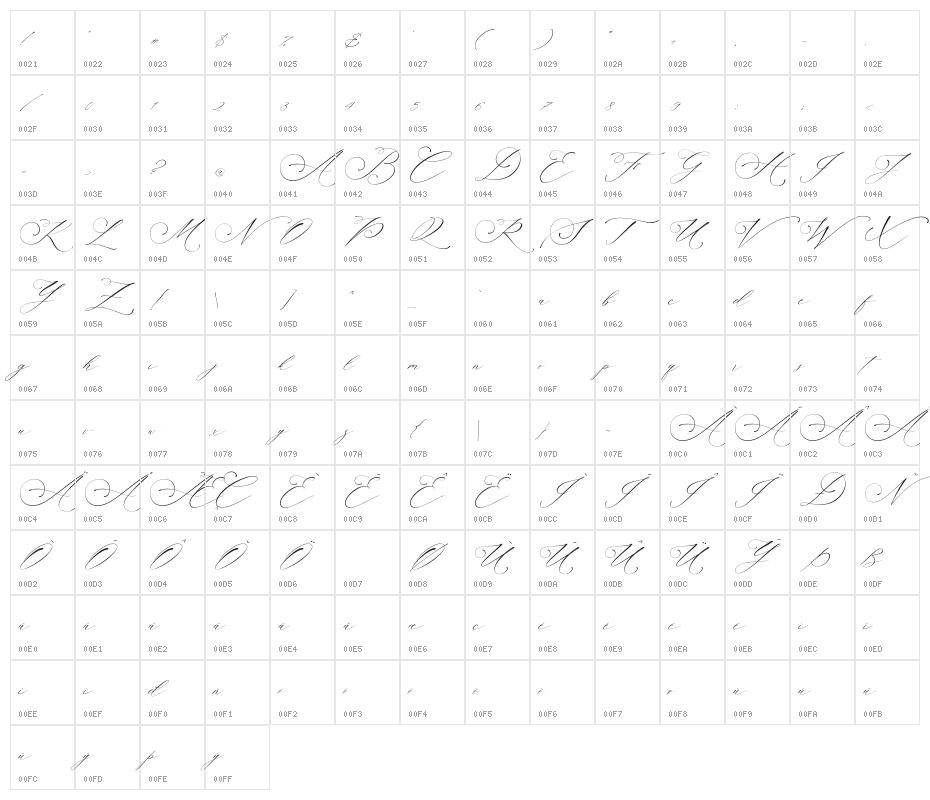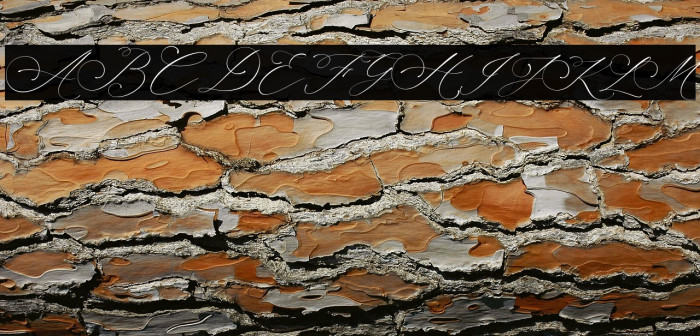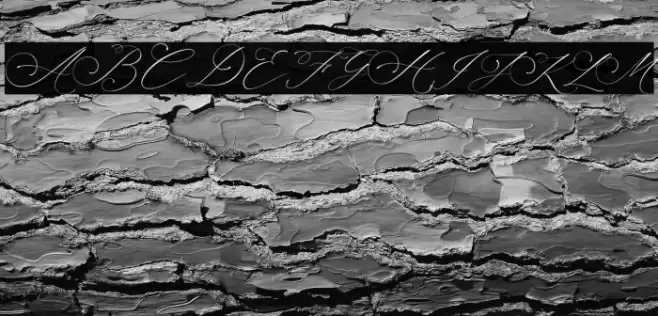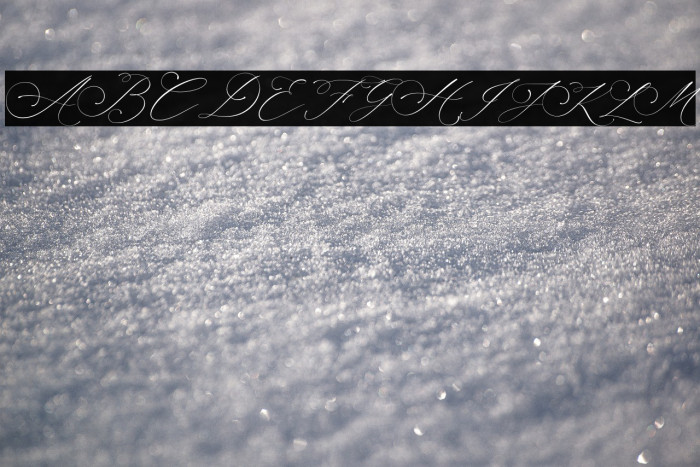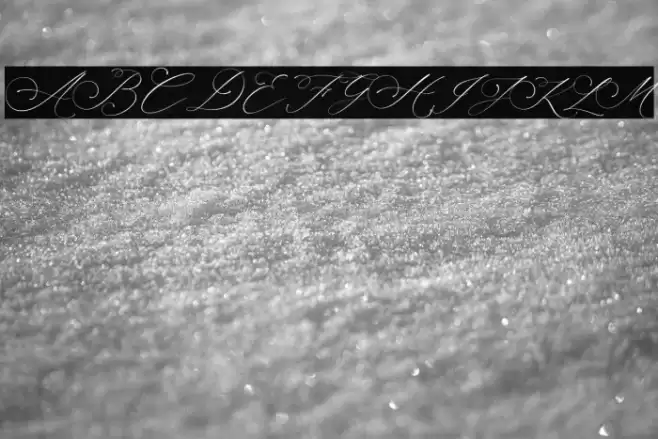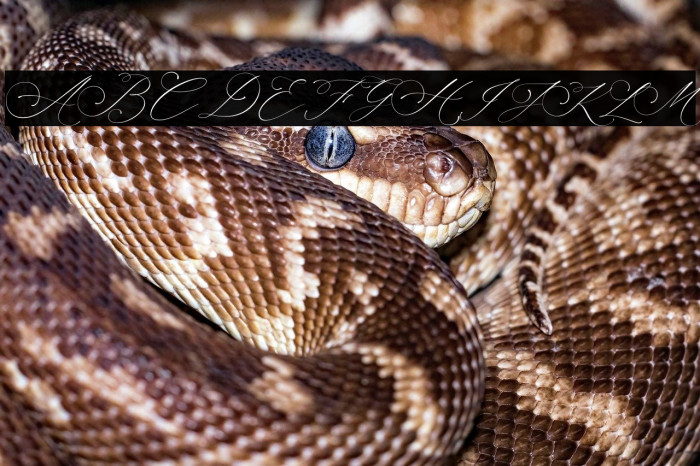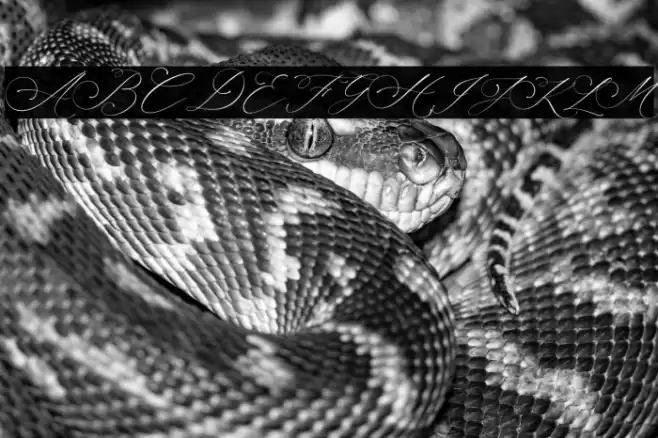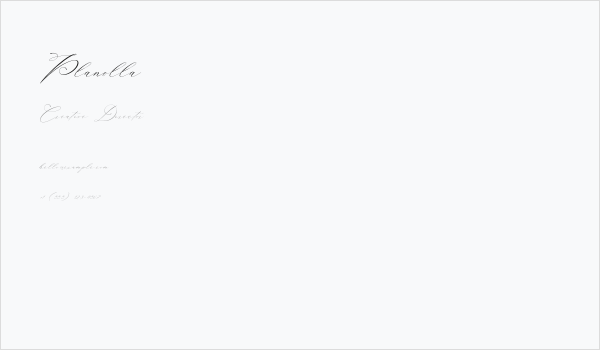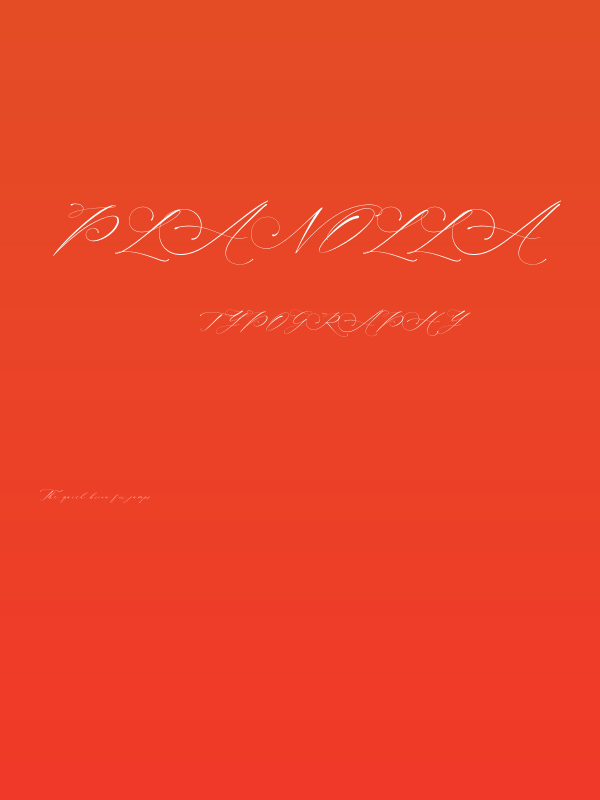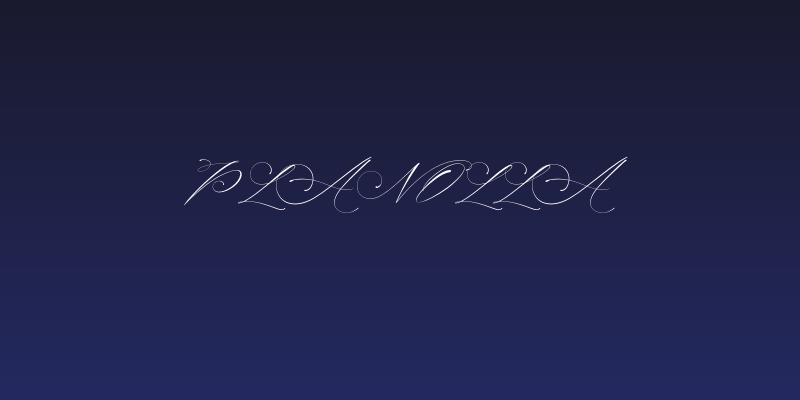
Planolla Font
Planolla Description
This elegant script font features flowing, interconnected letters with a sophisticated flair. The uppercase characters are adorned with intricate swirls and loops, giving them a decorative and ornate appearance. The lowercase letters maintain a consistent slant, enhancing the cursive style, while the numerals and special characters are designed to match the overall aesthetic. The font's delicate strokes and graceful curves make it ideal for projects that require a touch of elegance and refinement.